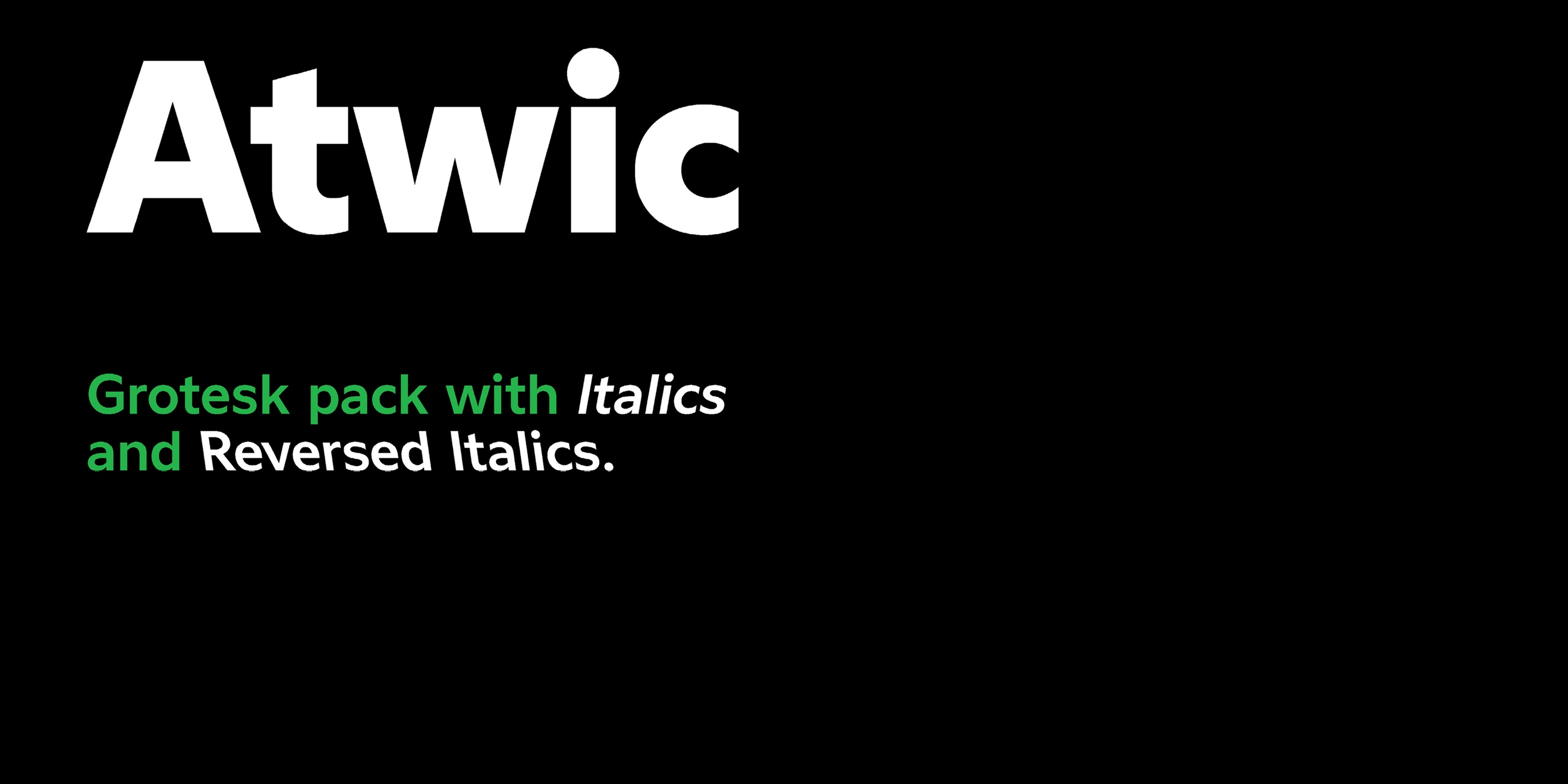
Atwic Font
Atwic Font is perfect for contemporary tech branding, modern digital interfaces, minimalist corporate communications, sleek product packaging, progressive web design, innovative startup materials, clean architectural presentations, sophisticated mobile applications, streamlined visual identity systems, and cutting-edge user experience designs.
What makes Atwic Font so exciting is its innovative embodiment of digital sophistication and contemporary minimalism that captures the essence of modern technological advancement through precisely engineered typographic design. This thoughtfully crafted typeface features clean letterforms with optimized proportions and subtle character refinements that immediately convey intelligence, efficiency, and the forward-thinking vision of digital innovation. The font's systematic construction and contemporary aesthetic create an instant sense of technological competence and modern sophistication, making it ideal for projects that need to communicate digital expertise, innovative thinking, and the seamless integration of technology and design to audiences seeking cutting-edge solutions and meaningful technological advancement.
The Atwic Font family typically includes multiple contemporary weights and digital styles, often featuring thin, light, regular, and bold variations along with precisely crafted italic versions. Modern tech font collections frequently offer extensive character sets including advanced OpenType features, multiple numeral styles, and comprehensive symbol support that ensure optimal typography across diverse digital communication requirements and innovative design applications.
The innovative nature of Atwic Font makes it particularly effective for targeting demographics that prioritize technological advancement and digital innovation in their personal and professional pursuits. Tech marketers and UX designers will find this font especially valuable for materials that must establish immediate technological credibility and connect with audiences seeking authentic digital experiences and meaningful technological solutions.
What sets Atwic Font apart is its ability to convey technological sophistication while maintaining the human accessibility essential for effective digital communication. This balanced characteristic makes it suitable for both highly technical applications and consumer-facing digital contexts where projecting expertise and maintaining user-friendly appeal must work together seamlessly.
Professional designers recognize that Atwic Font brings invaluable digital credibility to projects across industries including technology, software development, digital services, and innovative consulting. Its contemporary character and technological appeal make it essential for organizations whose mission centers on advancing digital innovation, improving technological experiences, and creating meaningful connections between human needs and technological capabilities.
The systematically optimized design of Atwic Font ensures consistent technological messaging across all digital-focused communication applications while honoring the fundamental principles of user-centered design and technological advancement.